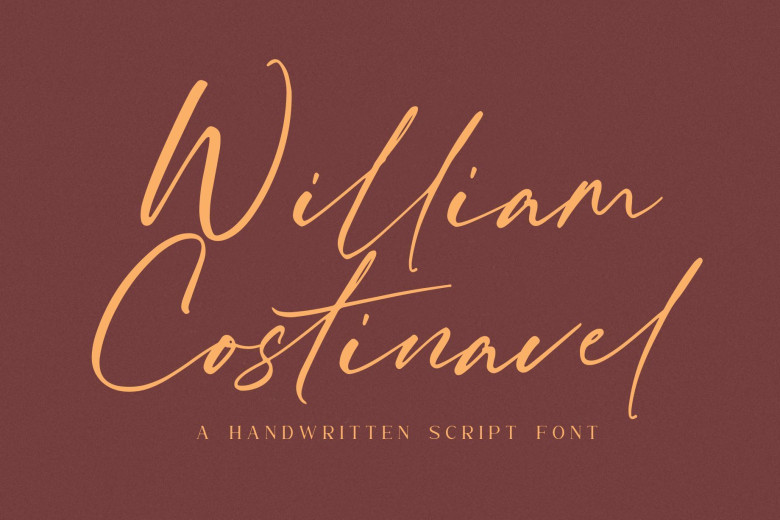
William Costinavel Handwritten Script Font
William Costinavel Font is a stylish modern handwritten script typeface with casual chic flair. William Costinavel with natural handwriting style perfect for many different projects such as logos, branding, invitation, stationery, wedding designs, social media posts, advertisements, product packaging, poster, product designs, label, photography, watermark, special events or anything, quotes, fashion, etc.